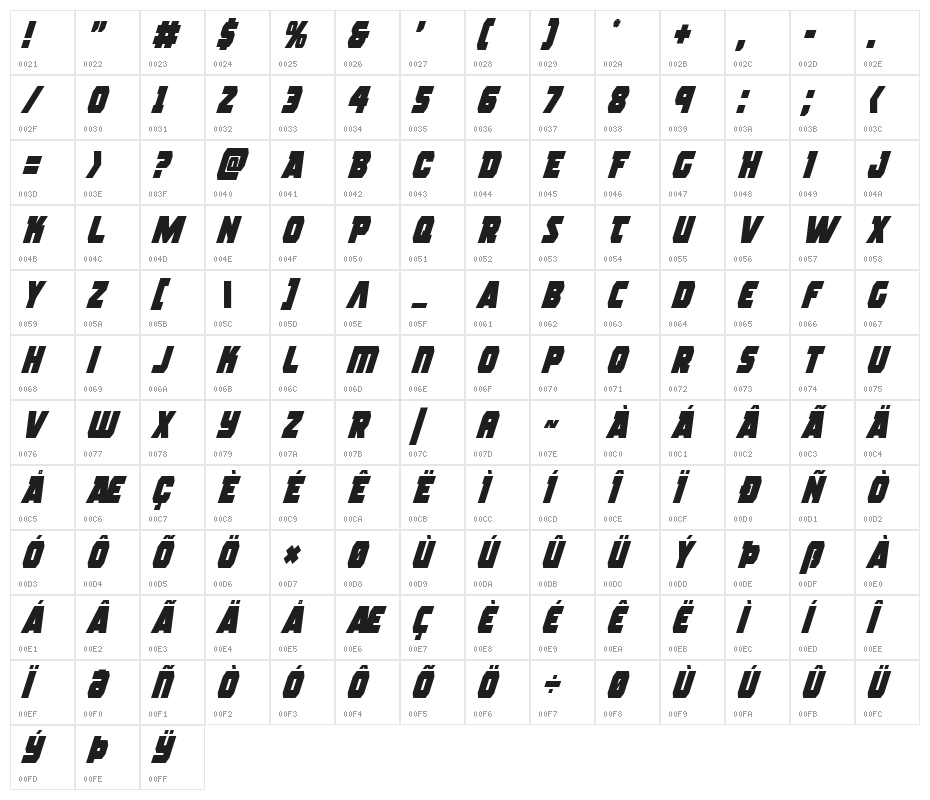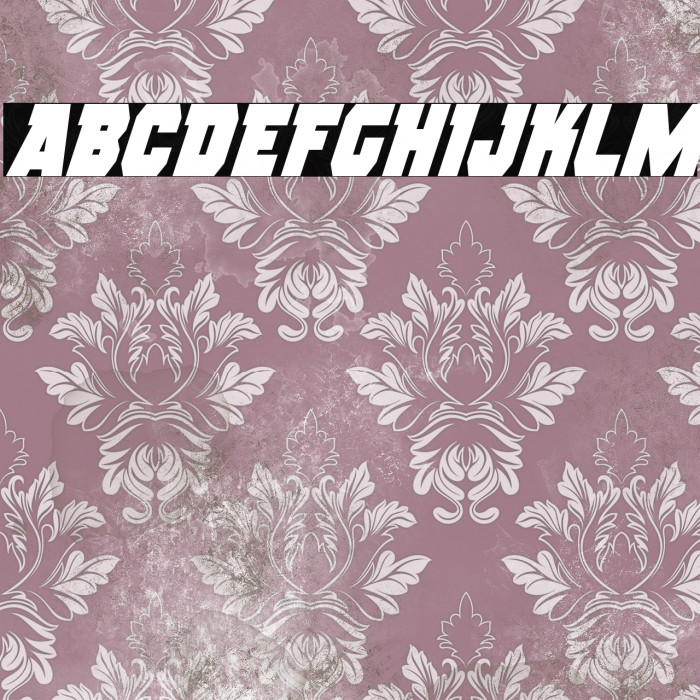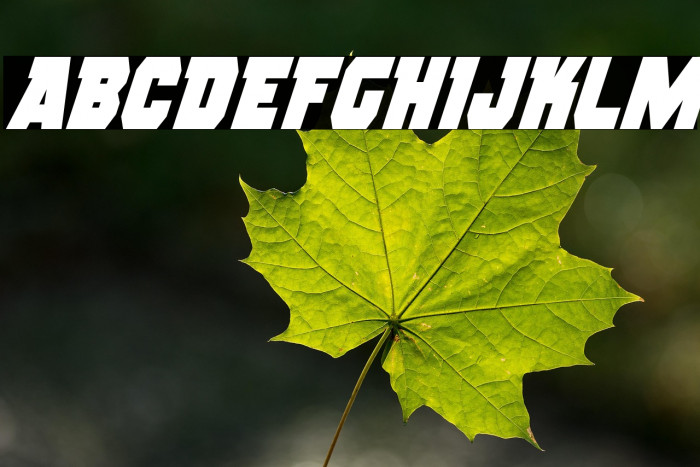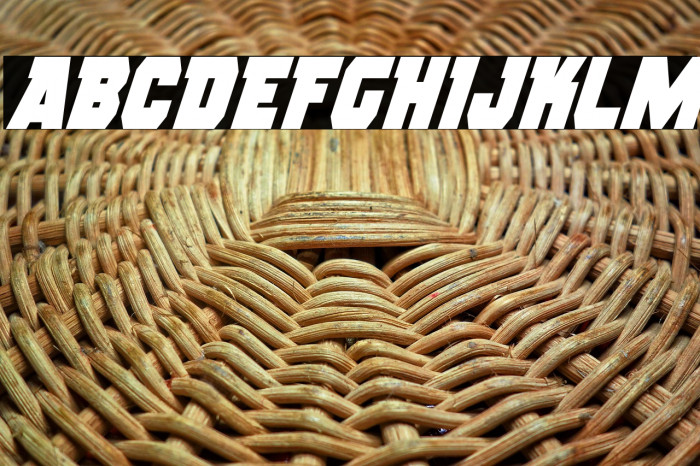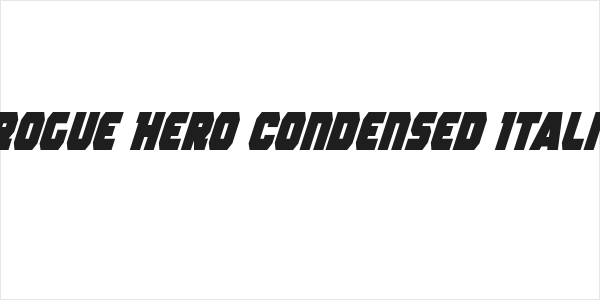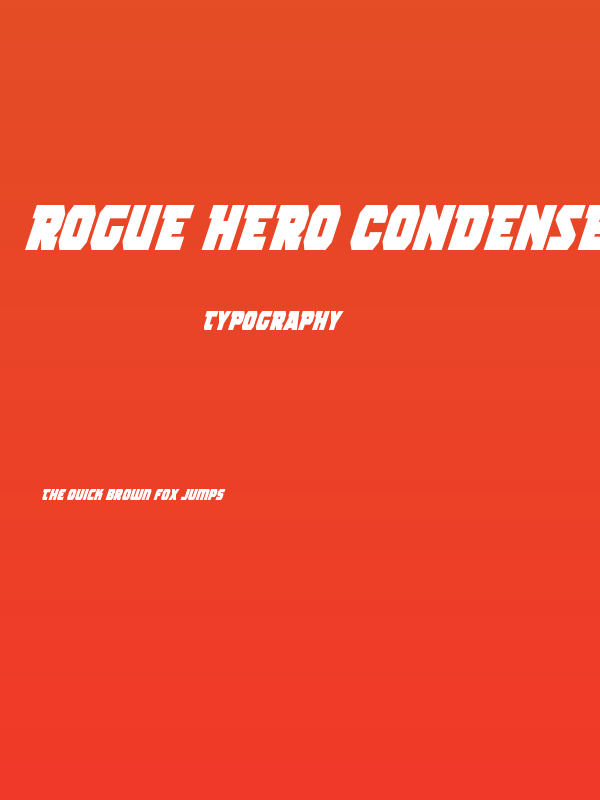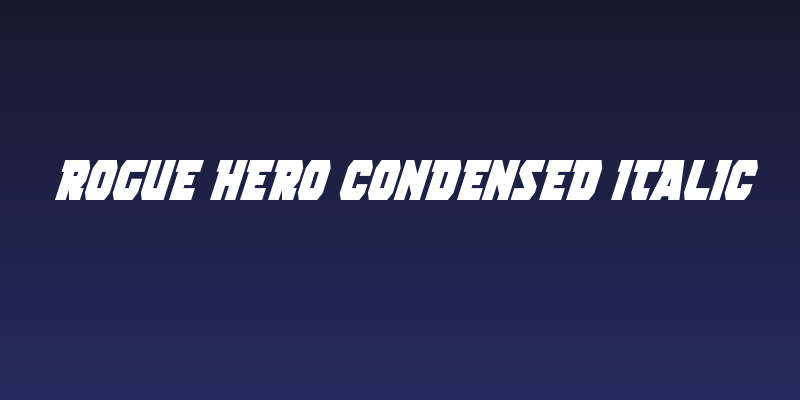
Rogue Hero Condensed Italic Font
Rogue Hero Condensed Italic Description
This font features a bold and dynamic design with a distinctly modern and edgy feel. The characters are condensed and italicized, giving them a forward-leaning, energetic appearance. The strokes are thick and uniform, contributing to a strong visual impact. The angular cuts and sharp edges add a sense of movement and urgency, making it ideal for attention-grabbing headlines or titles. The numbers and special characters maintain the same bold and angular style, ensuring consistency across all elements.
| Proposed Projects | Ideal for sports branding, action movie posters, video game titles, and dynamic advertising campaigns. |